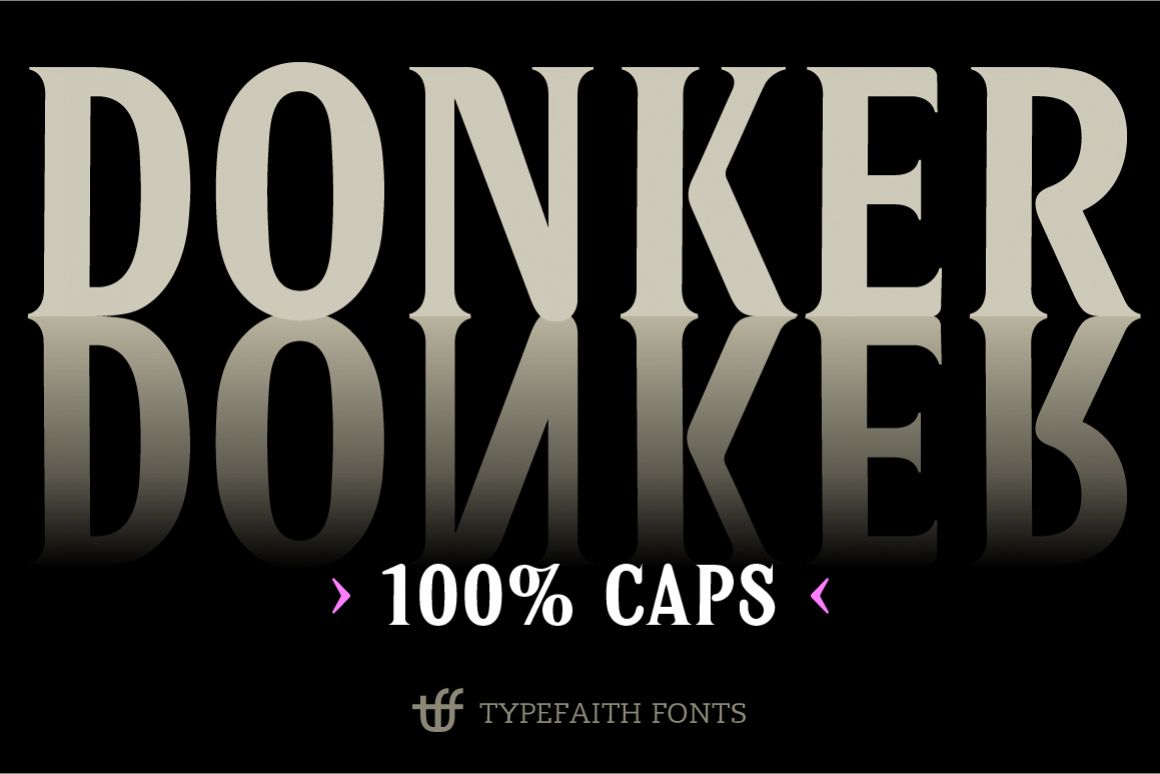
Donker Caps
Donker.
Donker Caps is an on woodblock type based font designed by TypeFaith Fonts. Donker Caps is an all-caps font with round and sharp shapes. With the PhotoShop add-on 'American Wood Type' by RetroSupply you can create the real woodblock effect.
Donkers is a great font to used when you need a full blocked style print. It is my go to for those times. I use it often when I need a script to pair.